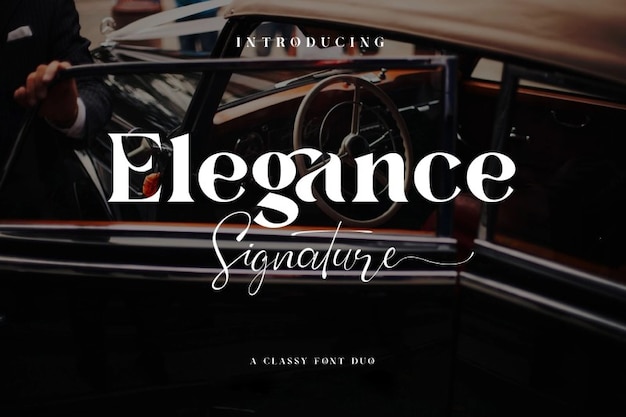
Elegance Signature
Elegance Signature Font
"Elegance Signature" is a sophisticated calligraphy font that embodies timeless beauty and refinement. With its graceful curves and flowing strokes, this font is perfect for adding a touch of class to invitations, greeting cards, and luxury branding. Ideal for any project that requires an elegant flair, "Elegance Signature" transforms words into art, making every message memorable.